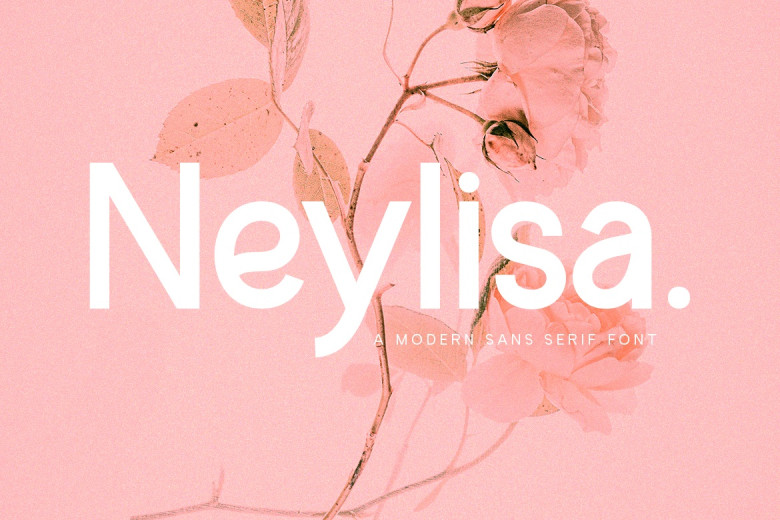
Neylisa Font
Introducing Neylisa Sans Serif with a matched serif creates a combination that is visually appealing in various combinations. Neylisa is a coming together of trends and experience. Xersetic Font Family is well-suited to creating logos and branding that is distinguishable. Including last but not least onthis product.
Neylisa Sans Serif Font